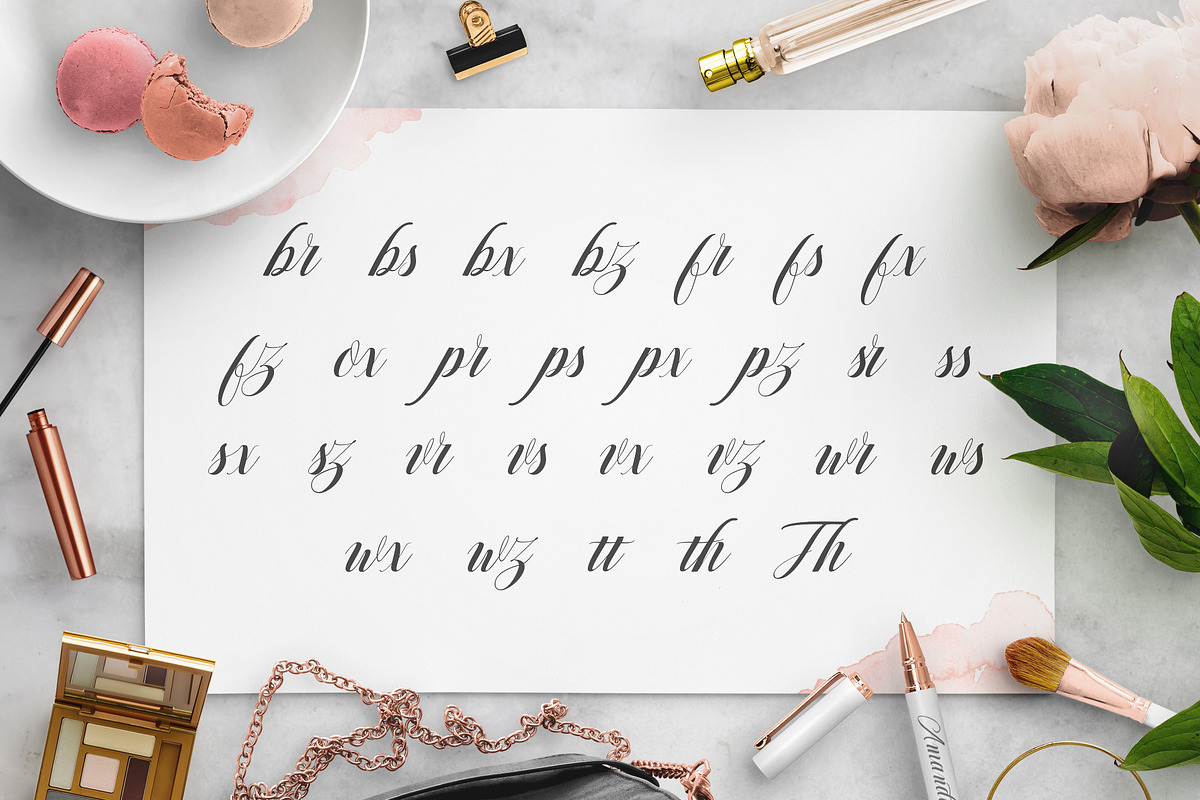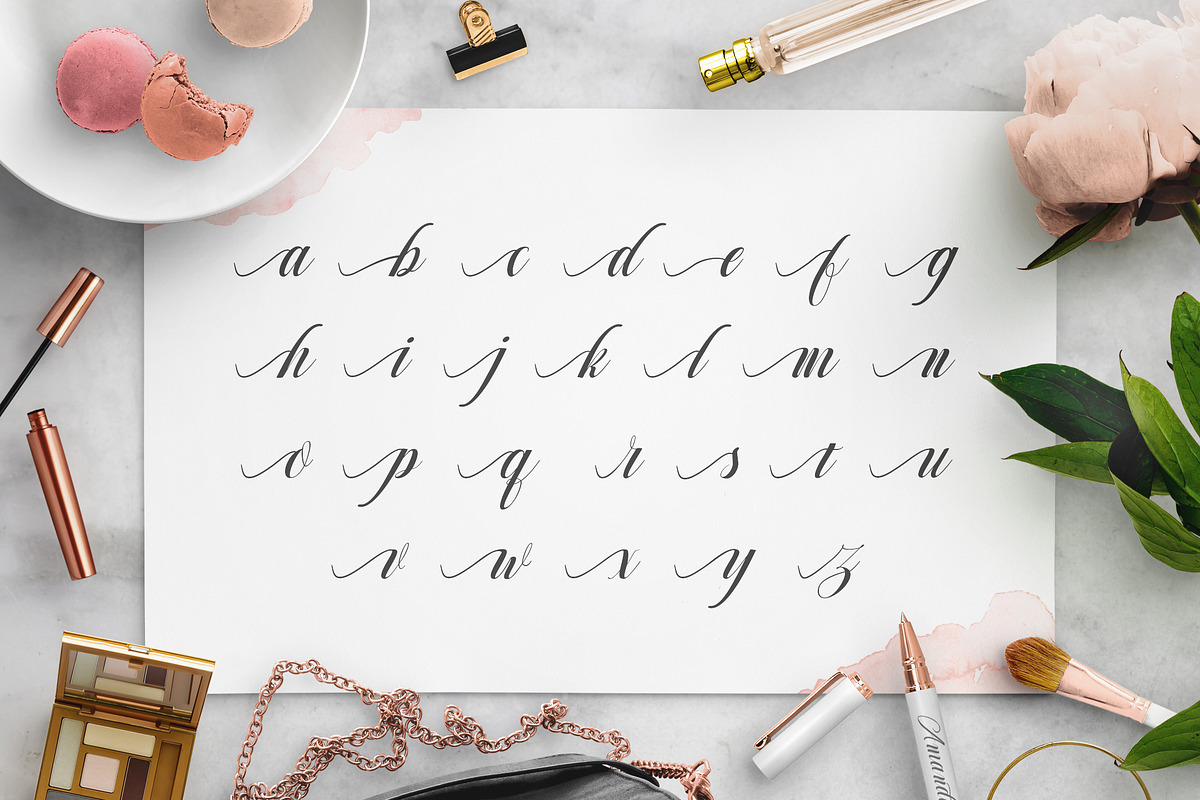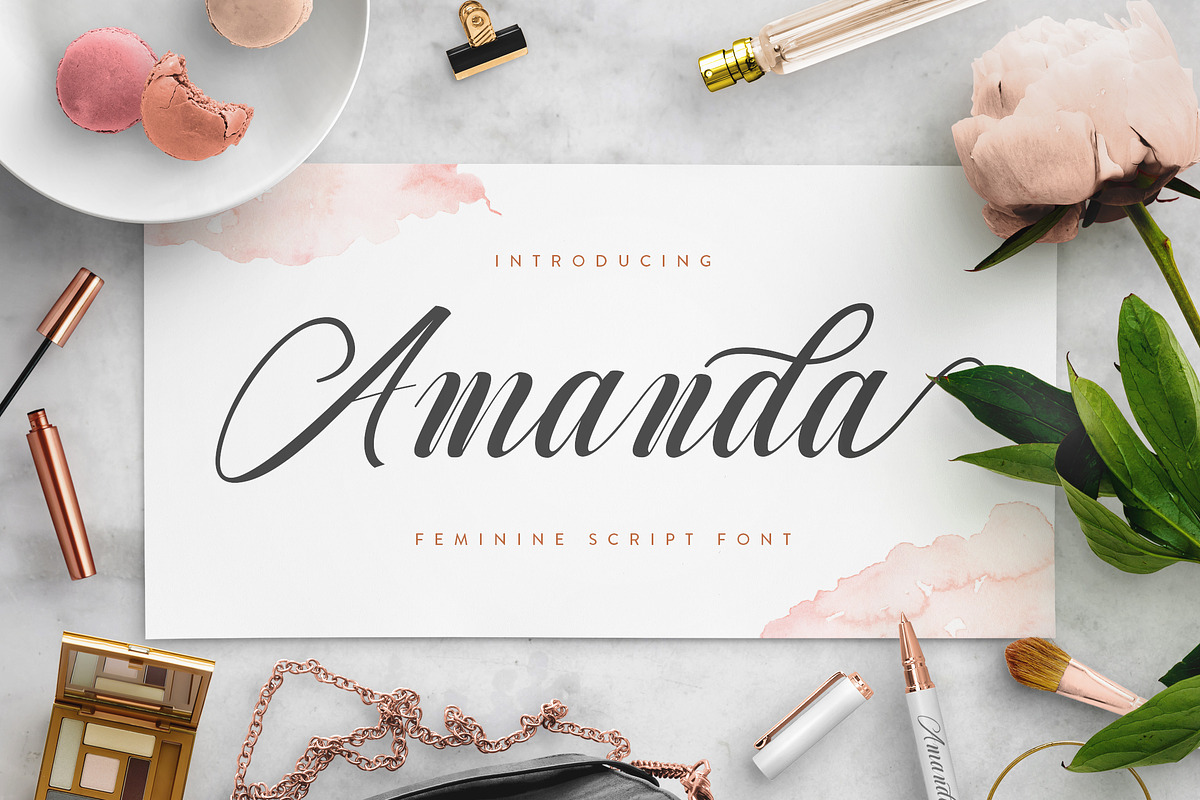
Amanda
Amanda by Font Bundles is a font selected for branding, posters, packaging, typography.
Why Amanda is worth a look
Amanda by Font Bundles fits naturally into Branding, posters, packaging, typography.